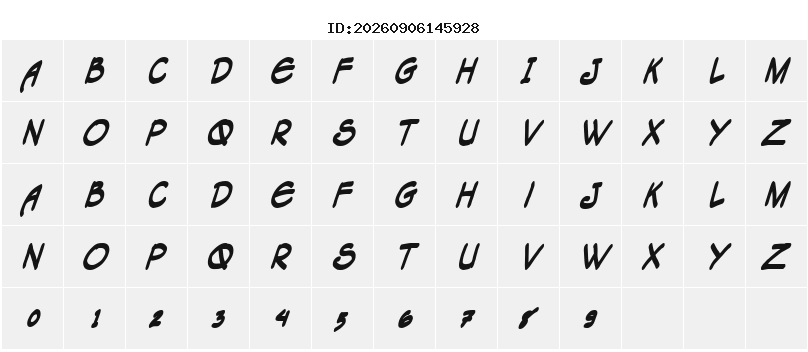
• Font Name: Tagapagsalaysay Caps (Narrator)
• Font Style: BoldItalic
• Full Font Name: Tagapagsalaysay Caps (Narrator) BoldItalic
About Tagapagsalaysay Caps (Narrator).ttf
Tagapagsalaysay Caps (Narrator).ttf is a modern, elegant sans-serif font designed for ultimate readability and visual harmony. Perfect for branding, headlines, web design, and print materials.